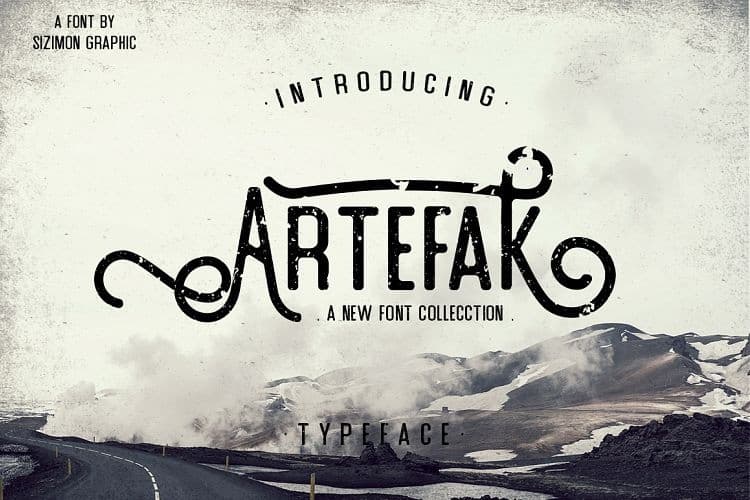
Artefak Display Font
Artefak Typeface A handmade typeface that inspired from hand-drawn lettering and vintage style, suitable for your awesome works (Brands, Poster, Logo, Advertisement, etc)